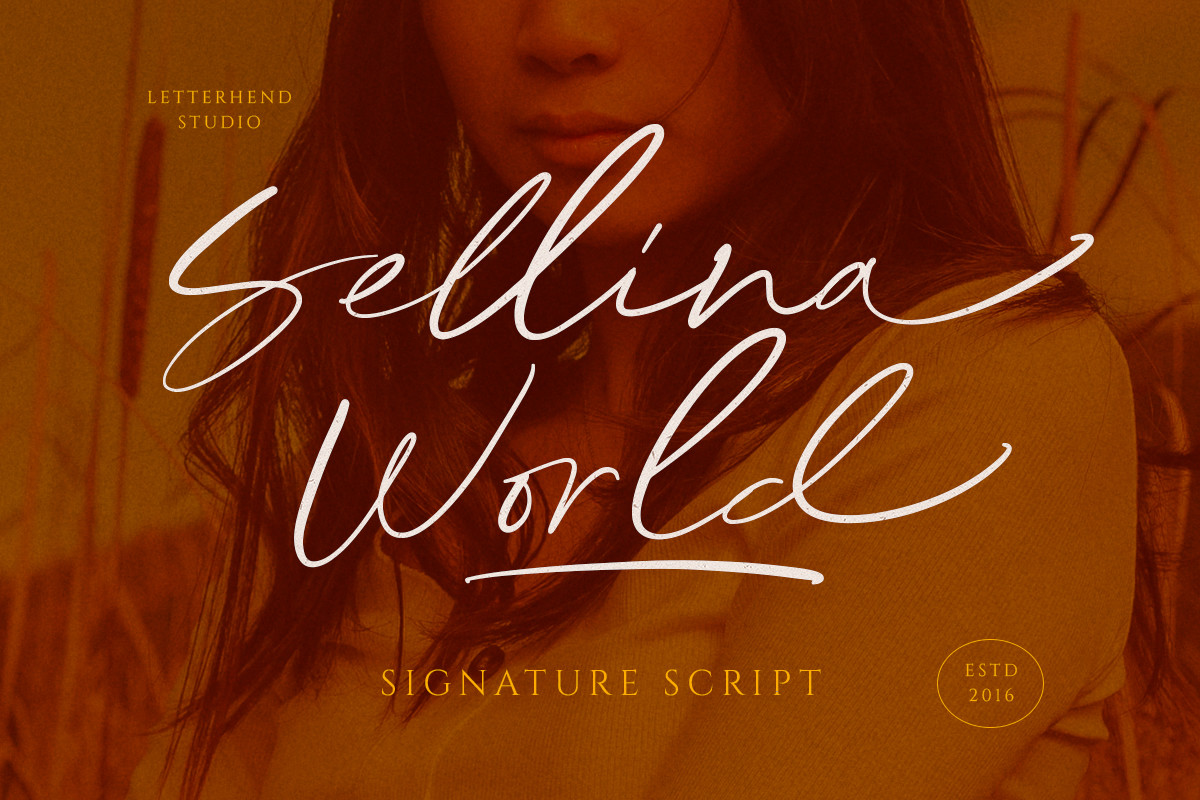
Sellina World Font
Sellina World Font is perfect for global travel agency branding, international cultural festival posters, world cuisine restaurant menus, multicultural education materials, global nonprofit organization graphics, international business presentations, world music album covers, cosmopolitan lifestyle magazines, diverse community event signage, and international e-commerce platforms. This worldly typeface brings universal appeal to global shipping companies, international conference materials, multicultural marketing campaigns, world heritage site promotions, and cross-cultural communication designs.
Sellina World Font is exciting because it captures the essence of global connectivity and multicultural harmony through its universally appealing letterforms. The font features elegantly balanced characters with international design sensibilities that transcend cultural boundaries while maintaining excellent readability across diverse languages and writing systems. Its distinctive construction demonstrates cross-cultural sophistication with carefully crafted proportions that honor both Western and global typography traditions. The font's worldly elegance and inclusive design make it perfect for brands seeking to communicate global reach, cultural diversity, and international sophistication in their visual communications.
The Sellina World Font family includes various international styles: Light, Regular, Medium, Bold, Black, Italic, Condensed, Extended, Script, Display, Multilingual, and Cultural variants. Each family member maintains the core global DNA while offering different levels of international appeal for diverse cross-cultural design applications. The comprehensive font collection ensures consistent worldwide branding across international markets, multicultural campaigns, and global communication strategies.
Whether you're developing international brand identities, designing multicultural marketing materials, creating global website headers, or crafting cross-cultural communication campaigns, Sellina World Font delivers outstanding universal appeal and international sophistication. The font's distinctive global personality excels in international logos, multicultural packaging, worldwide signage, and cross-cultural applications where global harmony and inclusive design are essential.